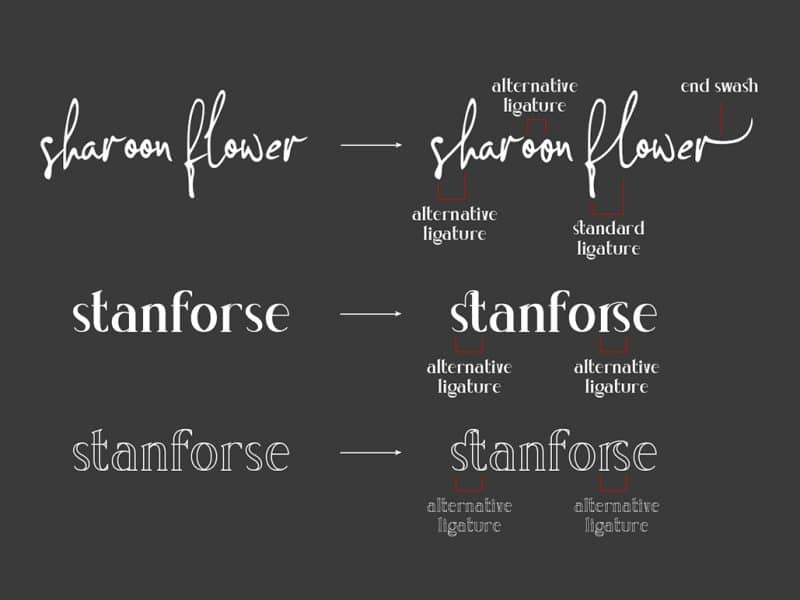
Concetta Kalvani Signature Font
Concetta Kalvani is a vintage Script and handwritten font with normal and outline styles. Made Deduk develop and contribute this lovely font. According to its name, the typeface has a signature quality and charm. Concetta Kalvani Signature.ttf, Concetta Kalvani Signature.otf, Concetta Kalvani Outline.ttf, Concetta Kalvani Outline.otf, Concetta Kalvani Block.ttf, and Concetta Kalvani Block.otf are some available font formats.
Uppercase, lowercase, Number & Symbol, International Glyphs, Alternative lowercase, and Ligature are only a few of the font’s outstanding and appealing characteristics. Instead of using the typeface plainly, it looks better with some curves. The font is compatible with Windows, Apple/Mac, Linux, Cricut, Silhouette, and other cutting machines. This font is PUA encoded as well, which is a wonderful feature for its users. The typeface has attractive glyphs that make it suitable for any creative project. Designers who adore designing cute designs and bright backdrops will love this typeface.
Concetta Kalvani is ideal for designing posters, book covers, merchandise, fashion campaigns, newsletters, branding, advertising, magazines, greeting cards, record covers, and quotation designs, among other things. This beautiful Script and handwritten font is a great option for any shopping bag from various brands. You can also utilize this font to make unique visiting cards.
Concetta Kalvani Signature Font View
| Name | Concetta Kalvani Signature Font |
| Designer | Made Deduk |